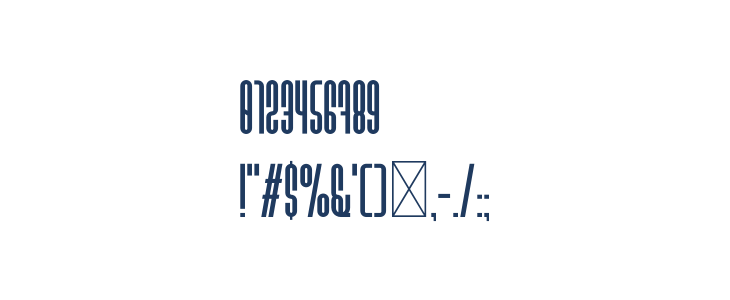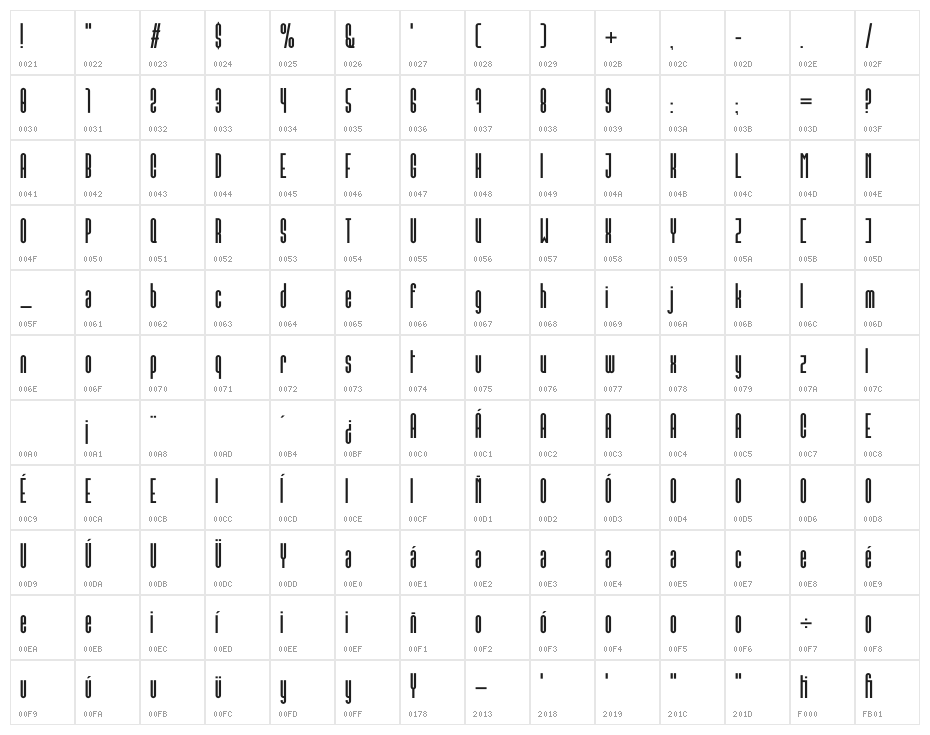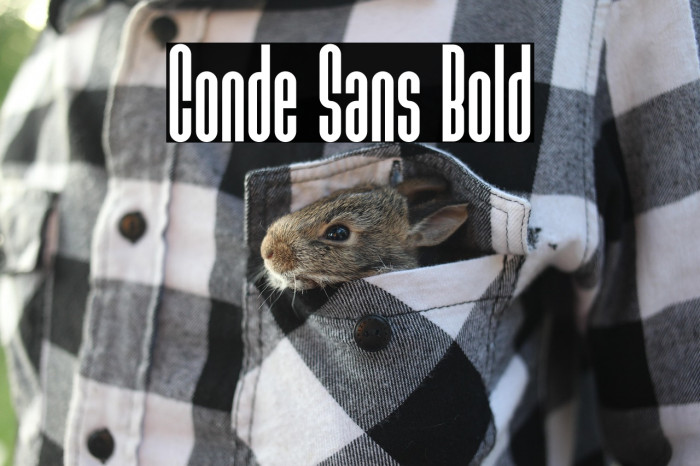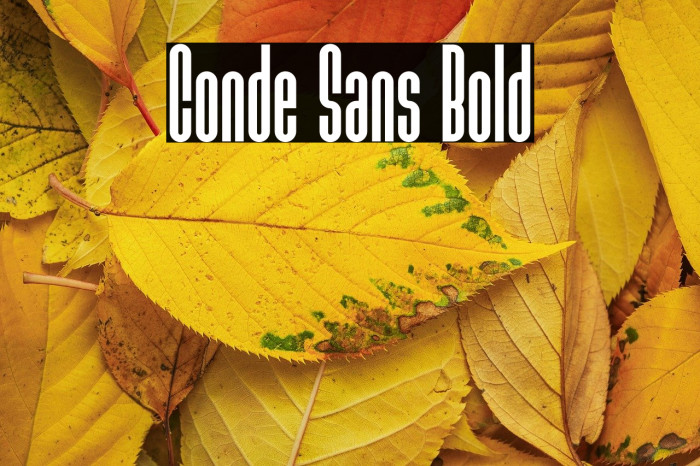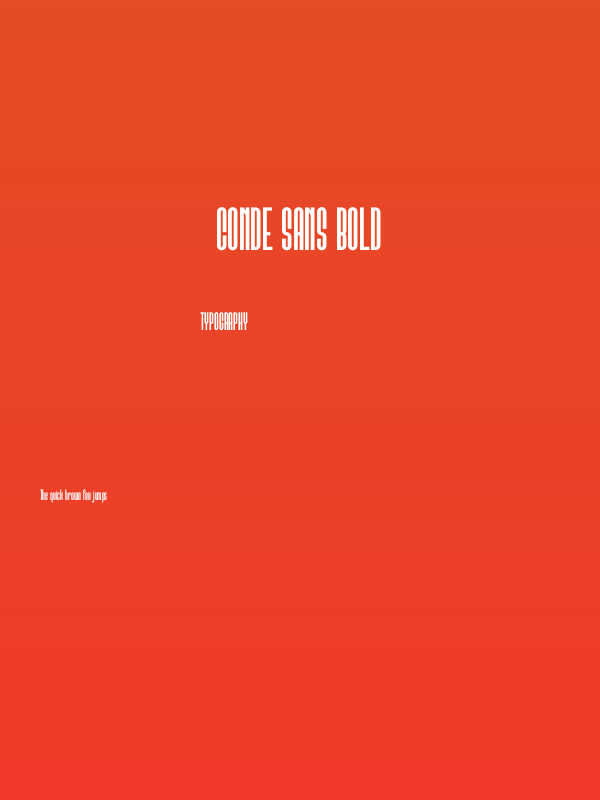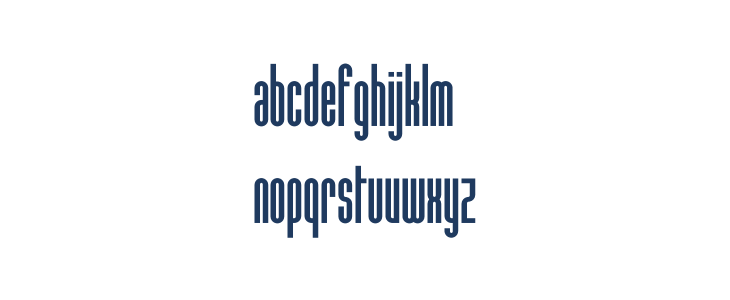
Conde Sans Bold Font
Conde Sans Bold Description
This font features a bold and condensed style, characterized by its tall and narrow letterforms. The uppercase and lowercase letters maintain a consistent height, creating a uniform appearance. The strokes are thick, providing a strong visual impact, while the vertical alignment of the characters enhances readability. The font includes a full set of numerals and a variety of special characters, making it versatile for different design needs. Its geometric structure and clean lines give it a modern and professional look, suitable for various applications.
| Proposed Projects | Ideal for headlines, posters, branding, and any design requiring a bold statement. |